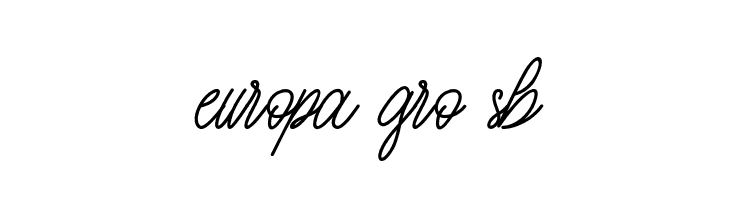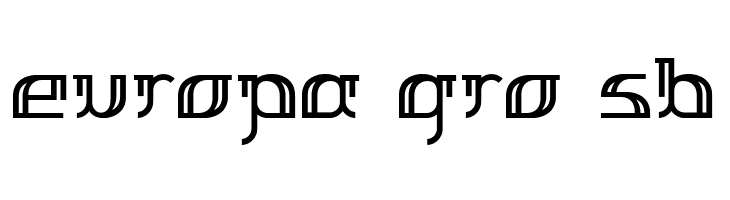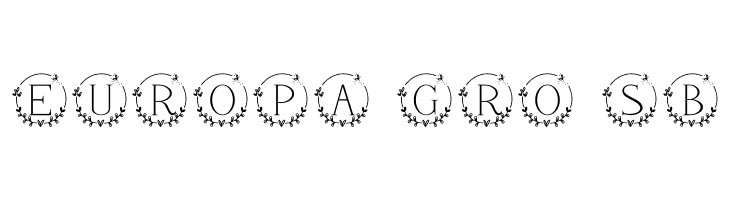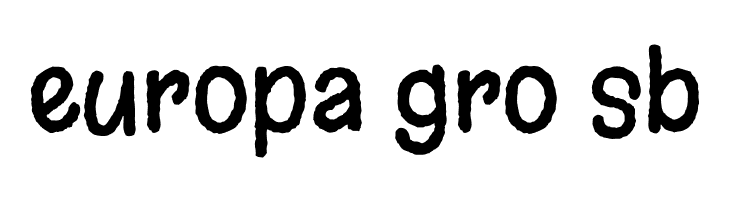
A sophisticated, high-contrast serif font with a modern and elegant style.
A graceful and fluid script font with elegant, flowing lines.
A decorative font with uppercase letters in floral-adorned circles, ideal for elegant designs.
A modern, geometric font with sharp edges and a futuristic style.
A geometric and modern font with angular shapes and clean lines.
A playful, hand-drawn font with bold, rounded strokes.
A playful, handwritten font with rounded edges and a casual style.
A bold, playful font with rounded, smooth letterforms.
A playful, bold, and rounded font with a hand-drawn feel.
A playful, handwritten font with rounded, smooth letterforms.